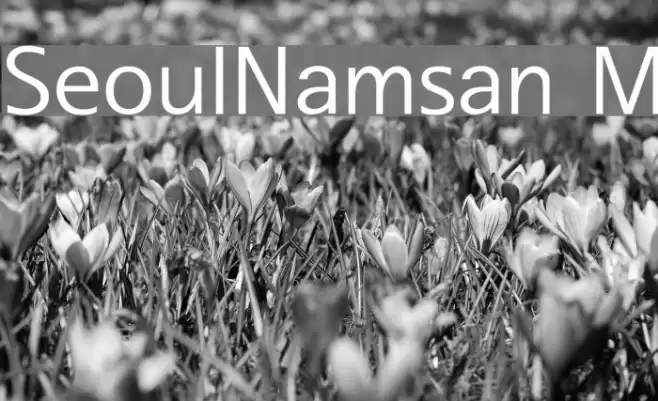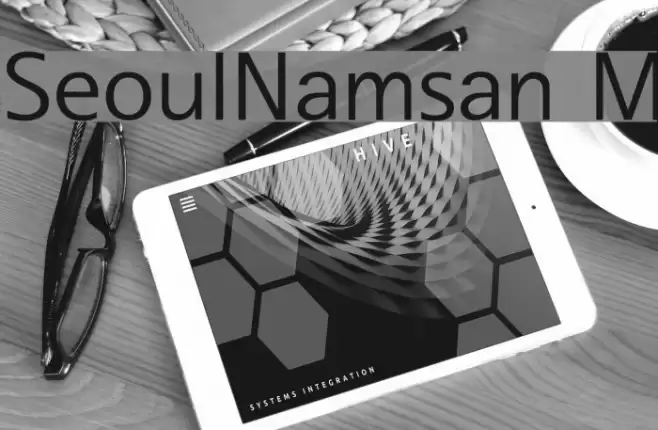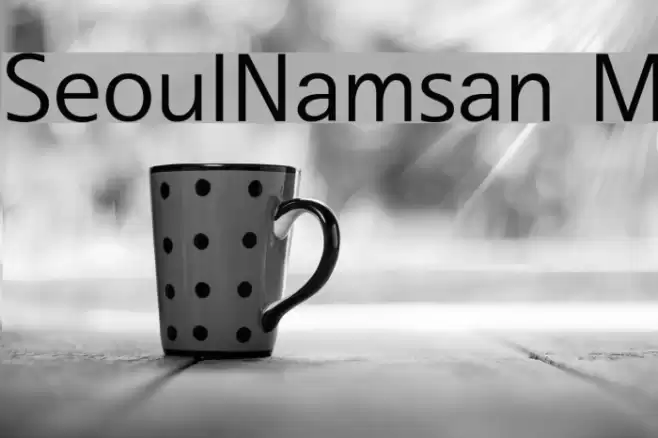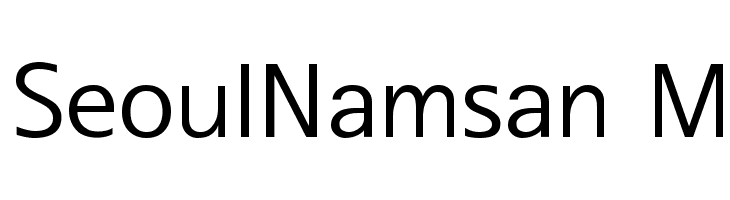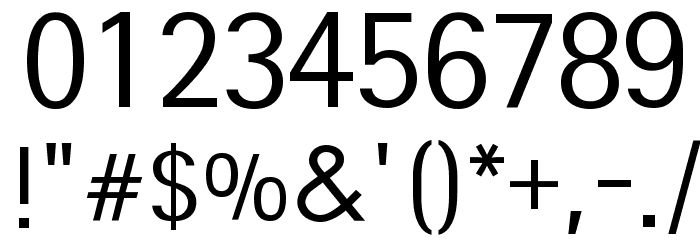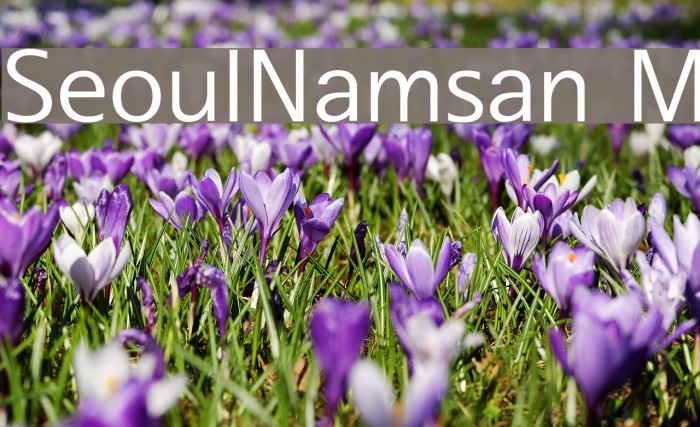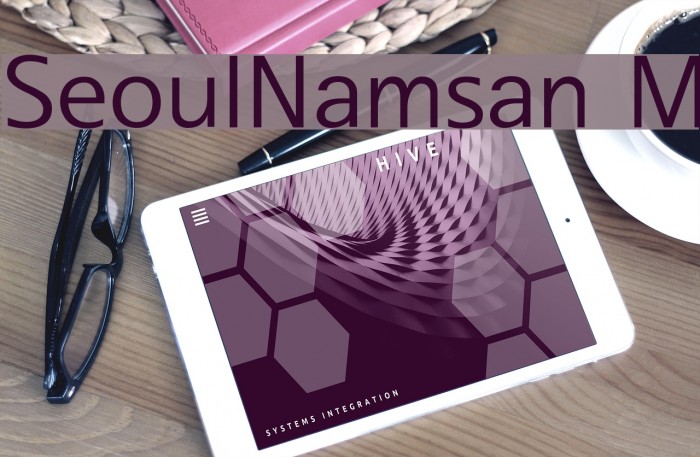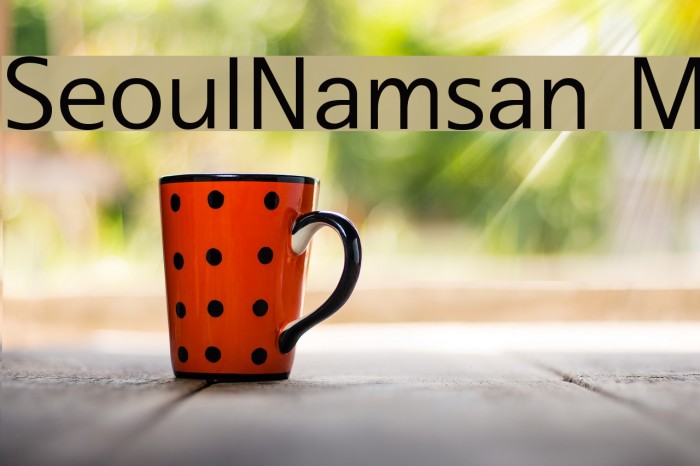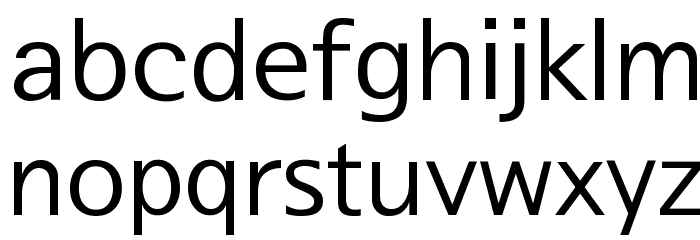
SeoulNamsan M Font
SeoulNamsan M Description
This font features a clean and modern sans-serif style, characterized by its simplicity and readability. The letters are evenly spaced with a consistent stroke width, providing a balanced and harmonious appearance. The uppercase letters are bold and assertive, while the lowercase letters maintain a friendly and approachable look. The numerals are clear and distinct, making them easy to read. Special characters are well-defined, adding to the font's versatility. Overall, this font is ideal for both digital and print media, offering a professional and contemporary aesthetic.
A modern, clean sans-serif font with balanced spacing and consistent stroke width from Uncategorized fonts.